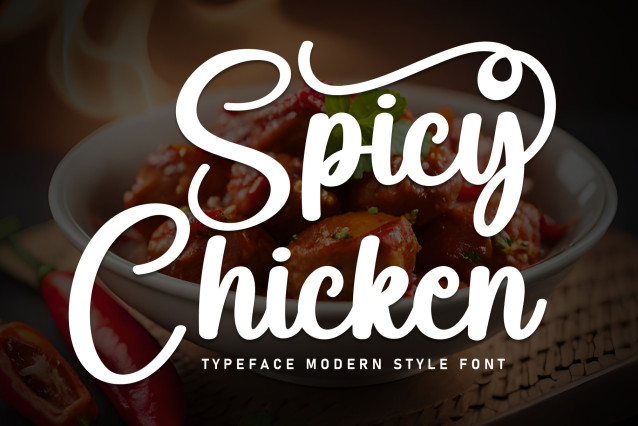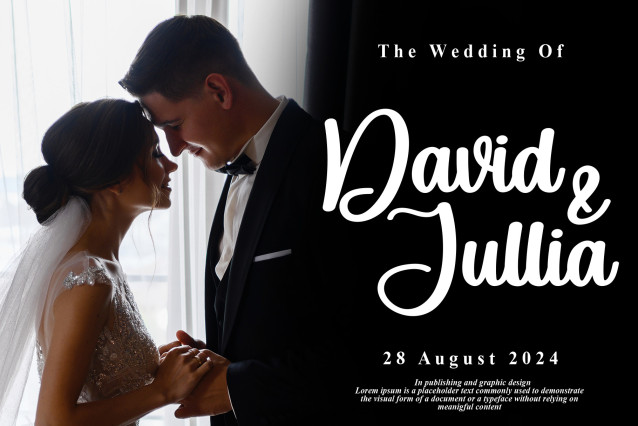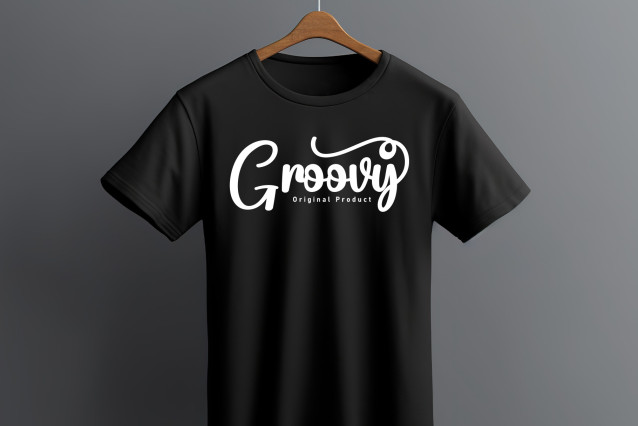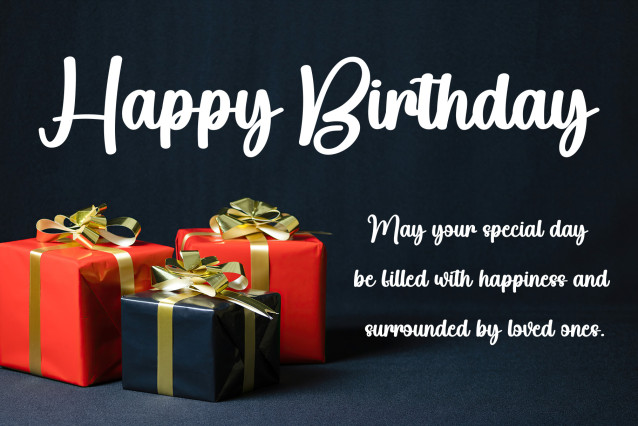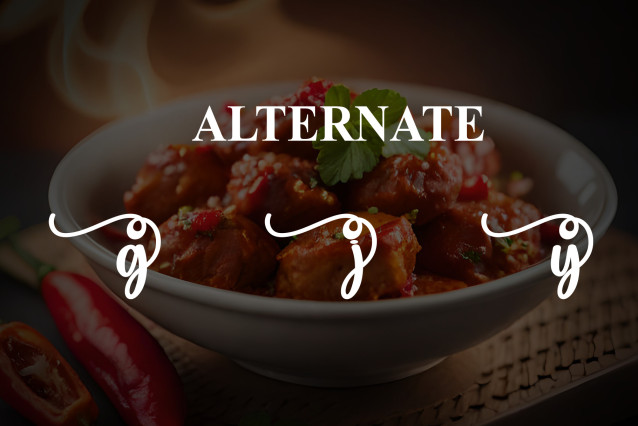
Spicy Chicken Script Font
Spicy Chicken Script Font is a bold handwritten font that has a lively and playful style. Its thick, curvy letters give a fun and casual look, perfect for making your text stand out with a touch of personality!